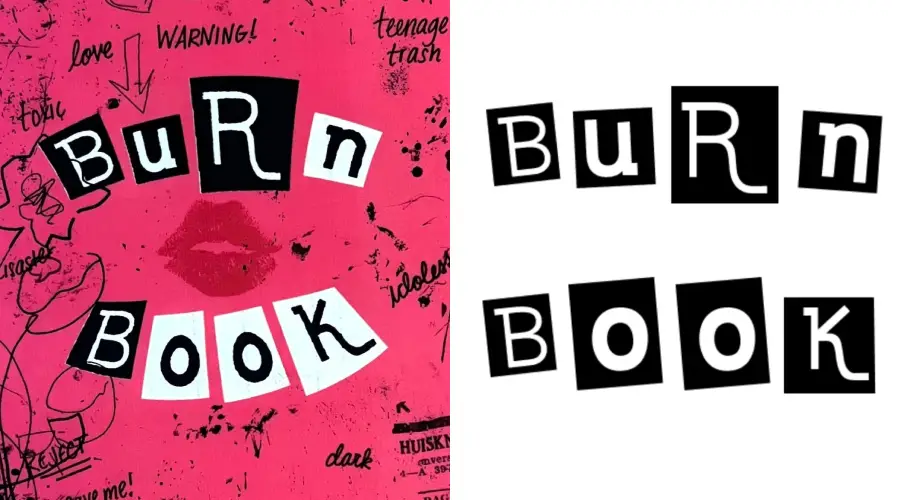
The Burn Book Font, featured in the 2004 teen comedy film “Mean Girls,” has captured the public’s eye with its distinctive style and association with the movie’s iconic “Burn Book.” Created by the movie’s popular clique, the Plastics, the Burn Book was filled with rumors, gossip, and insults about fellow students and faculty, driving a major plot point in the film.
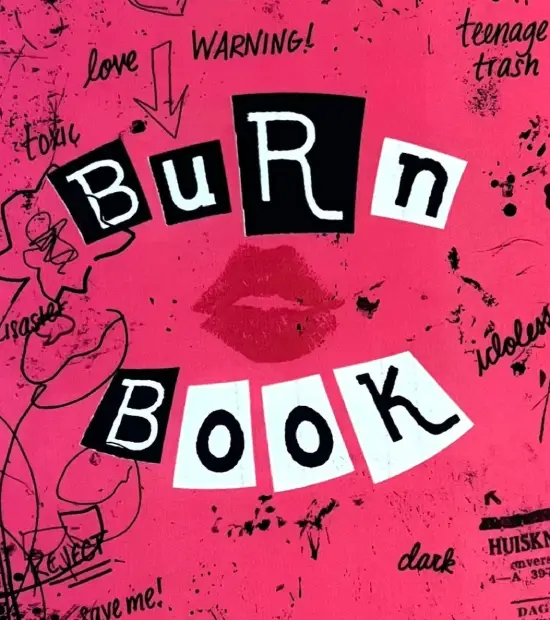
While the exact font used in the movie is unknown, but we found that the Earwig Factory font designed by Typodermic closely resembles the Burn Book font.
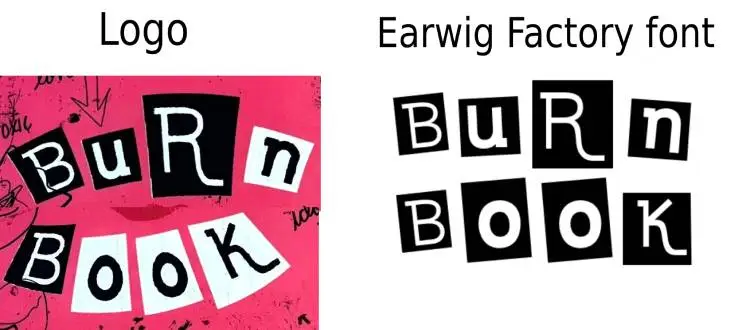
Burn Book Font Close Match
Additionally, there are several other similar fonts that match the design characters, including:
Ransom Font
This font was designed by Divide By Zero, this free font captures the essence of the Burn Book’s bold and playful style.
Black Casper Font
This font was created by Pi Luo Chiu, Black Casper offers a slightly more elegant yet similar look to the Burn Book.
Magazine Letter Font
This free font, designed by Brent Bernal, offers a clean and modern interpretation of the Burn Book style.
Kingthings Extortion Font
Designed by Kingthings, this free font adds a touch of grunge and edge, reminiscent of the Burn Book’s rebellious nature.
These fonts are excellent alternatives for achieving the signature look of the Burn Book font. You can try using these fonts to achieve a similar look.